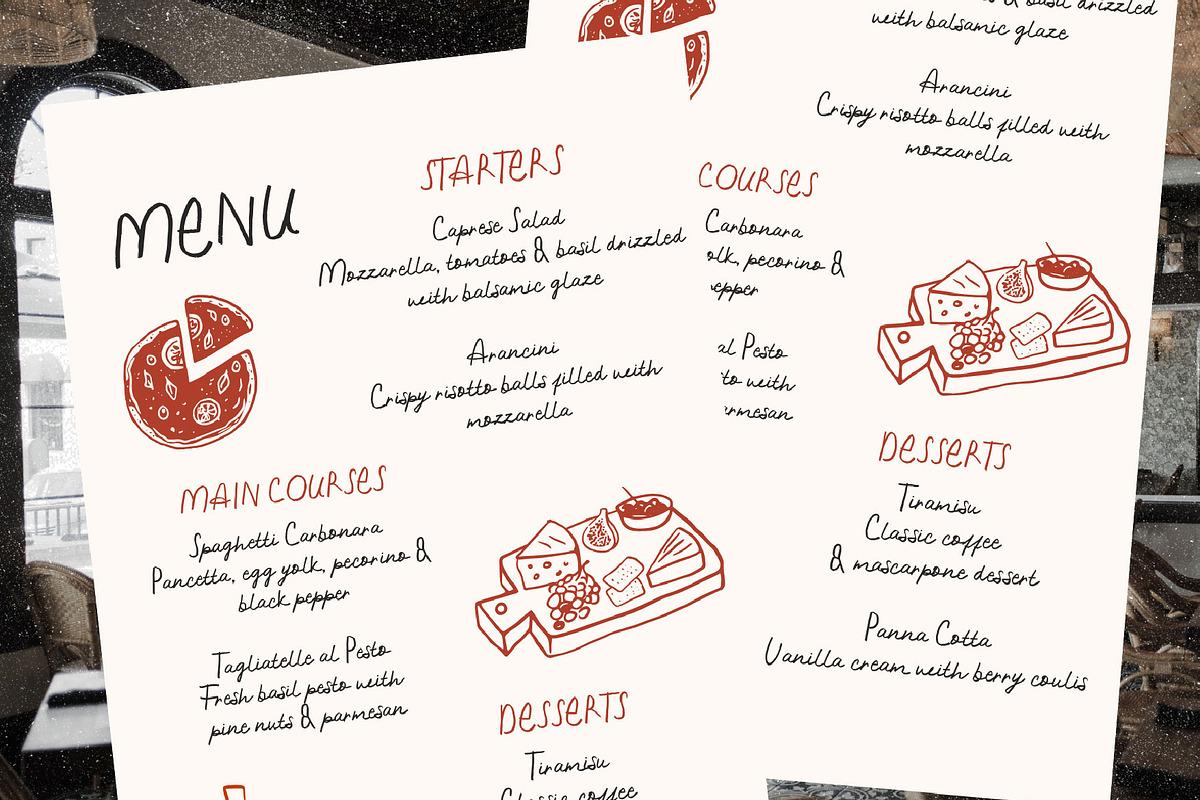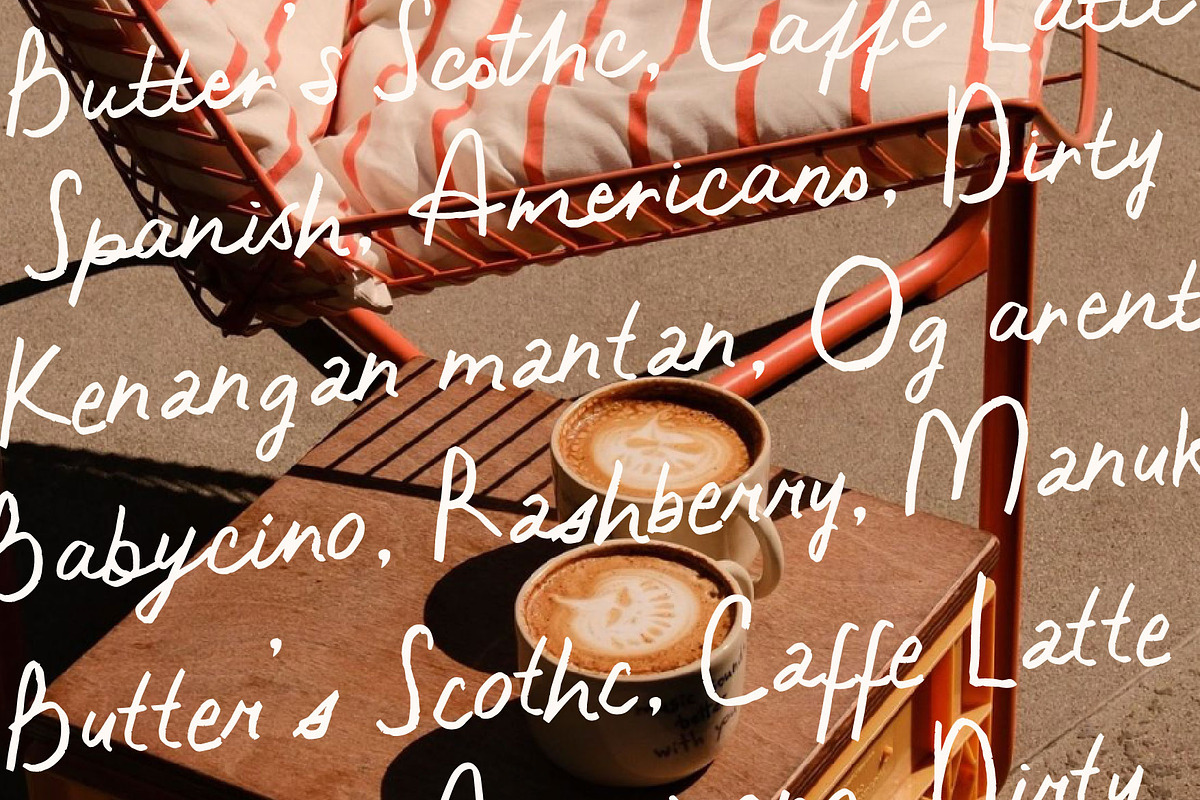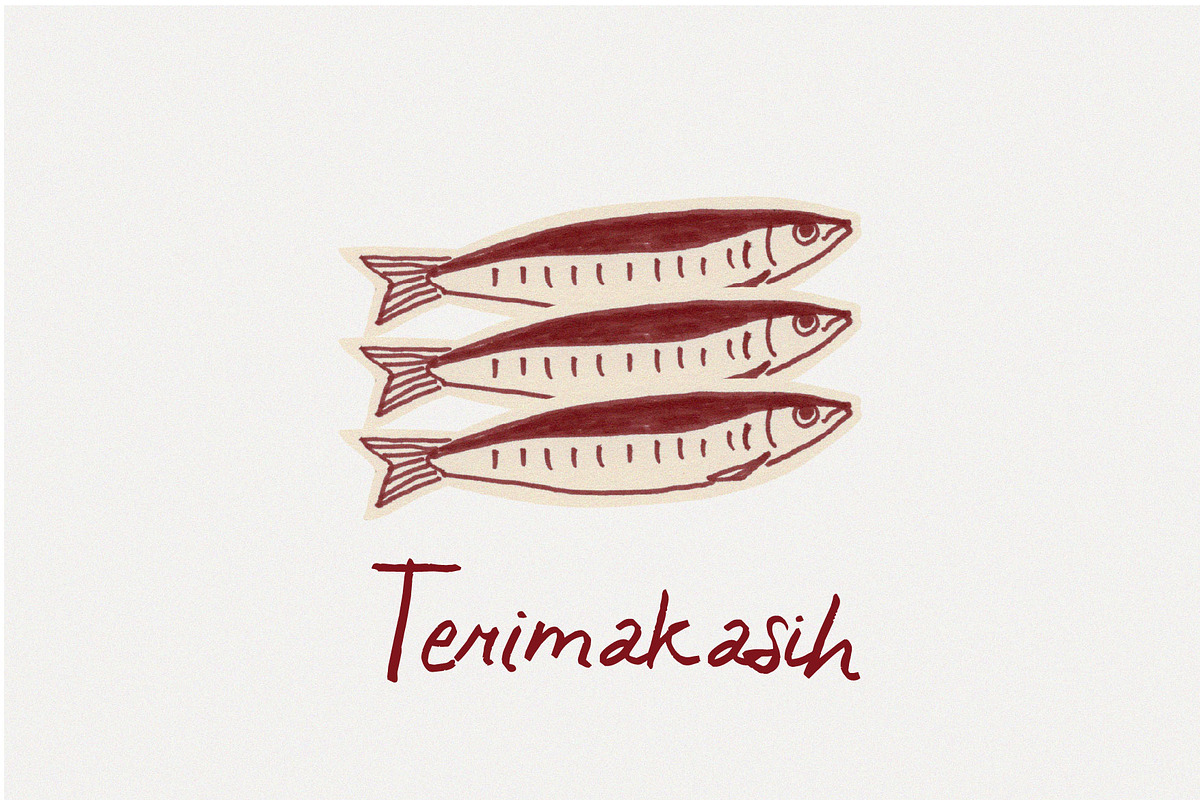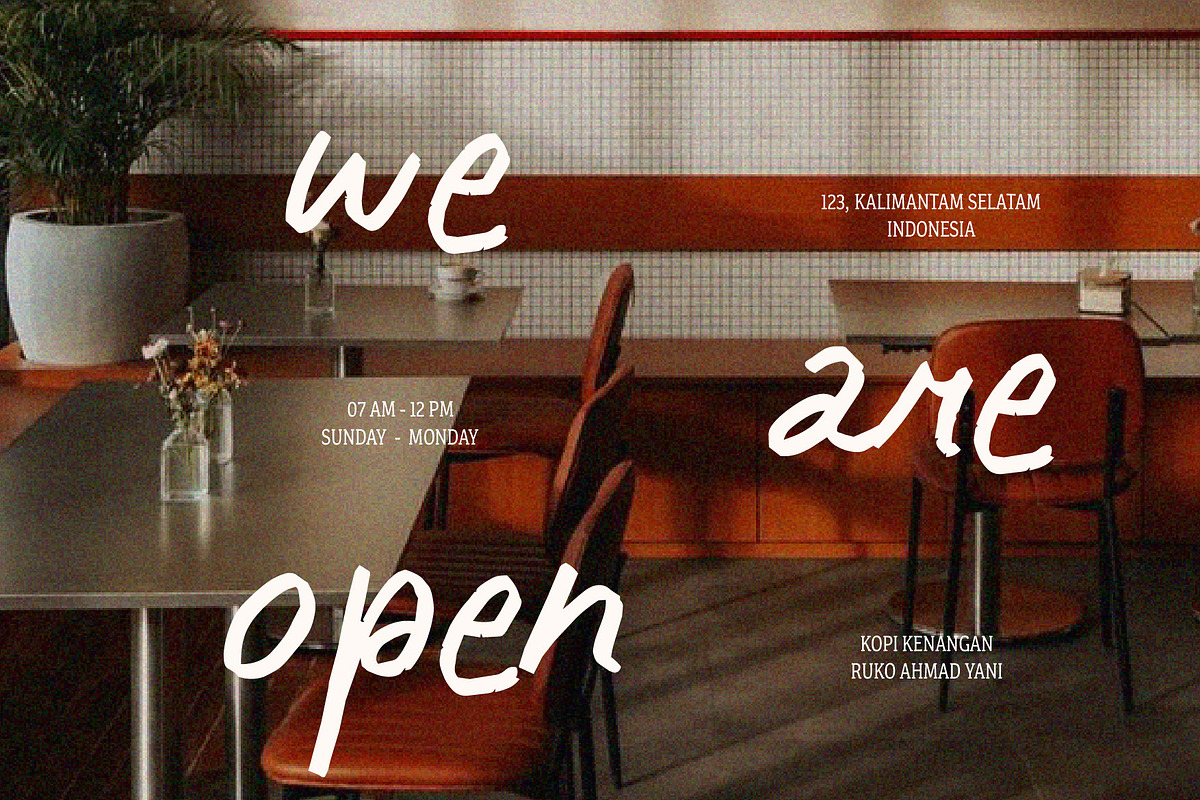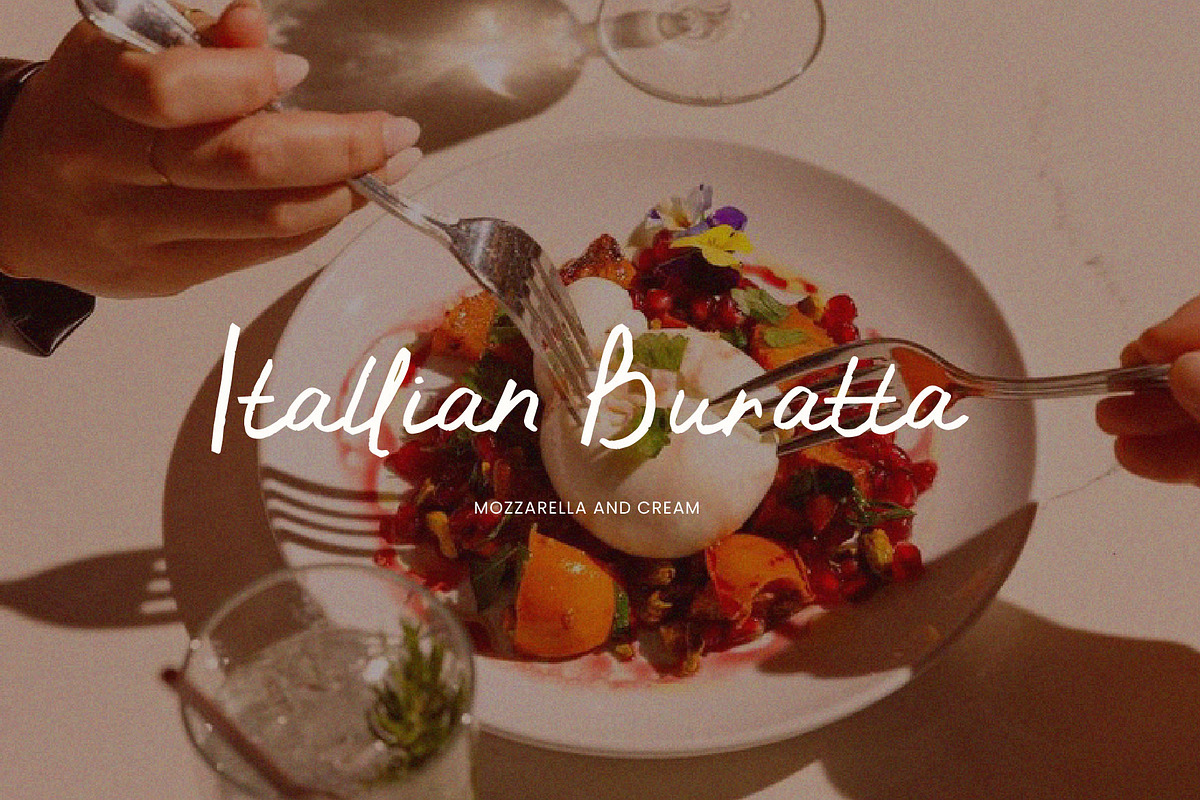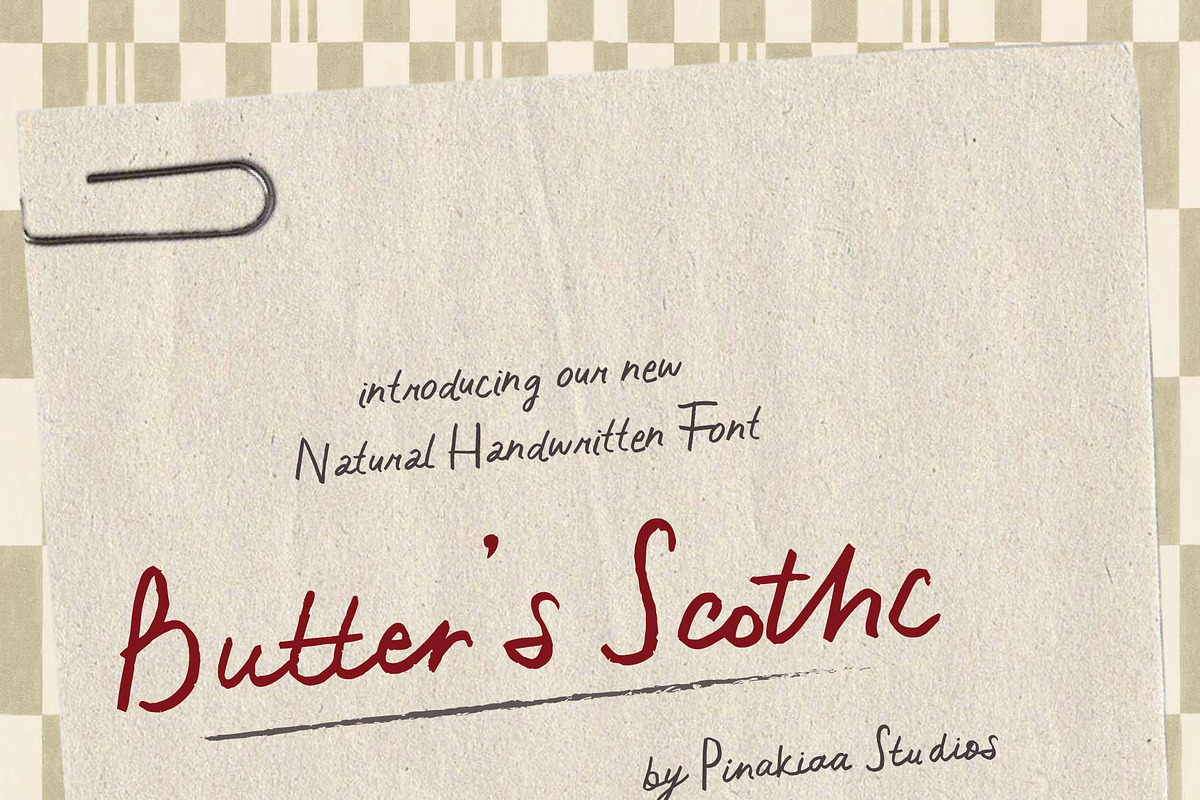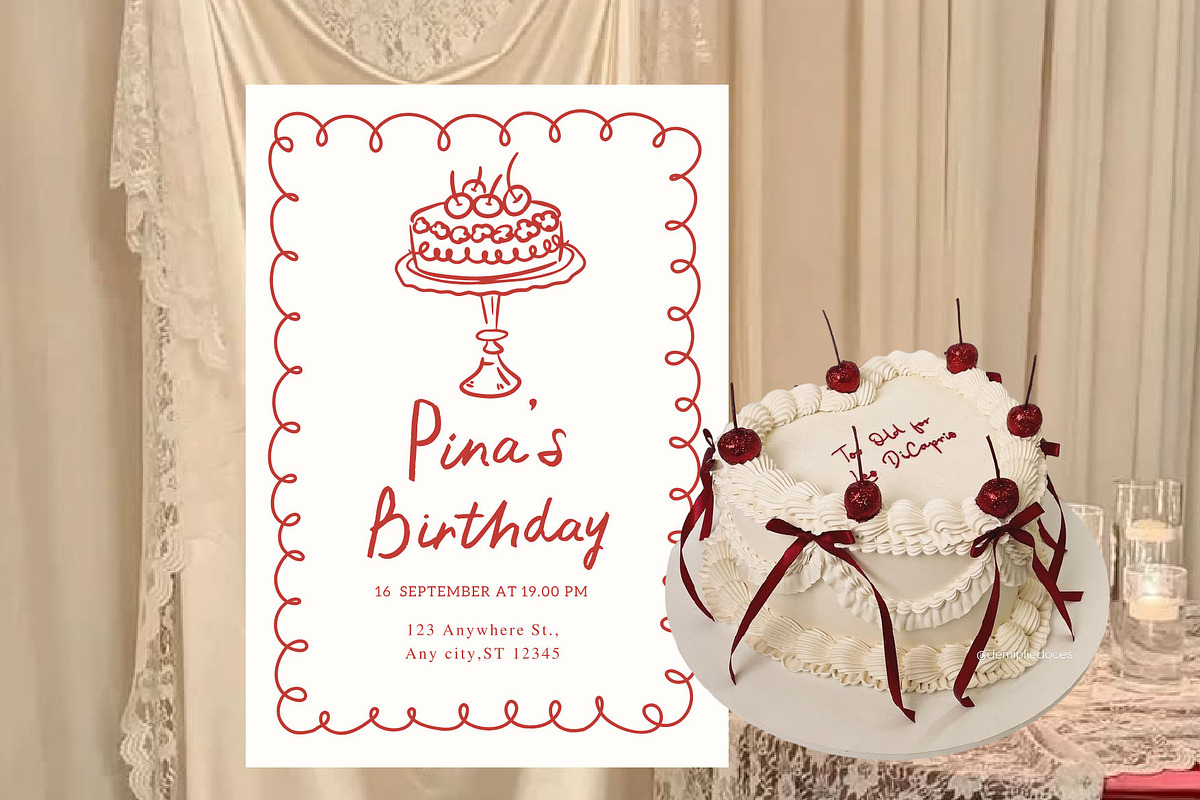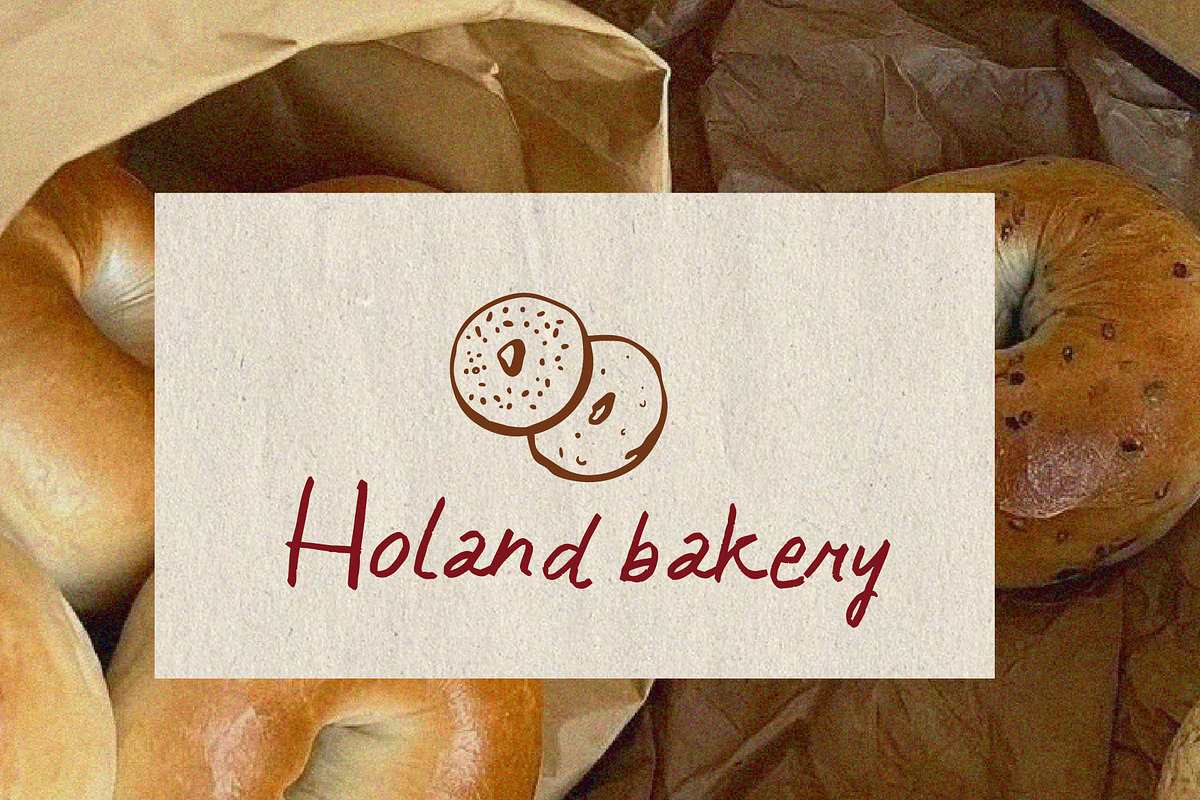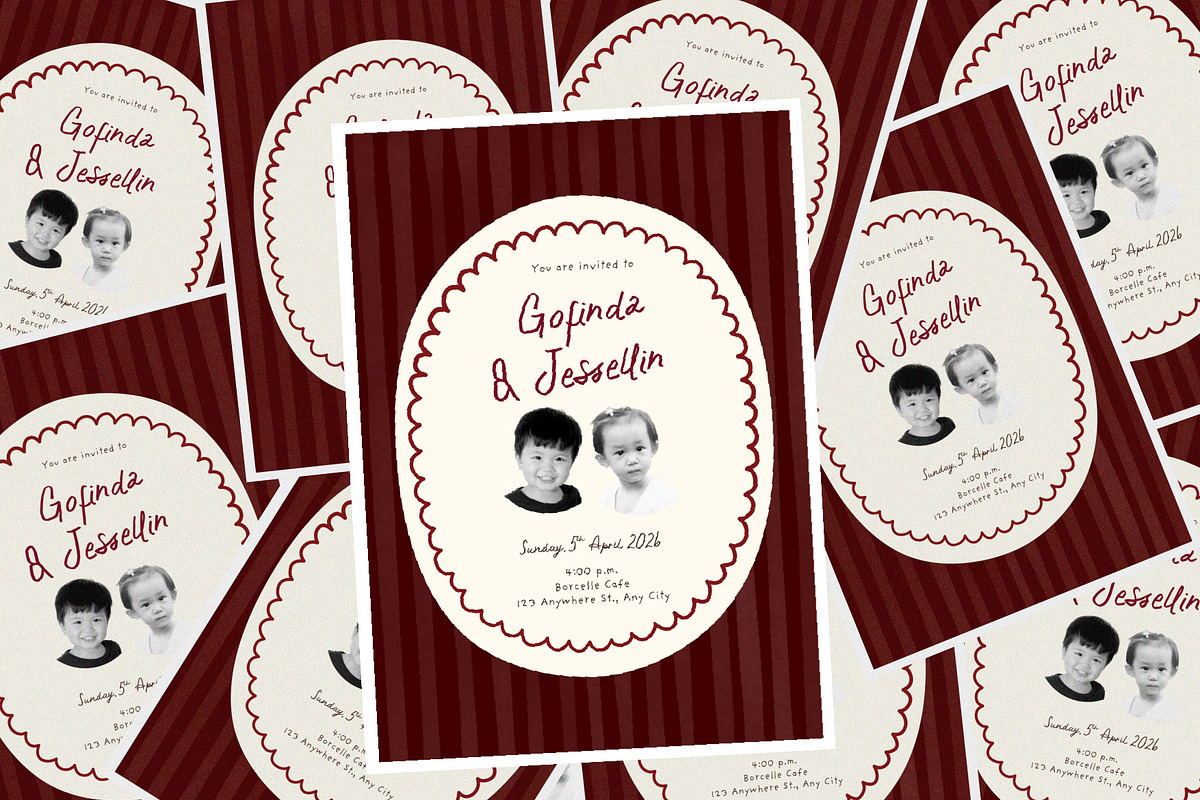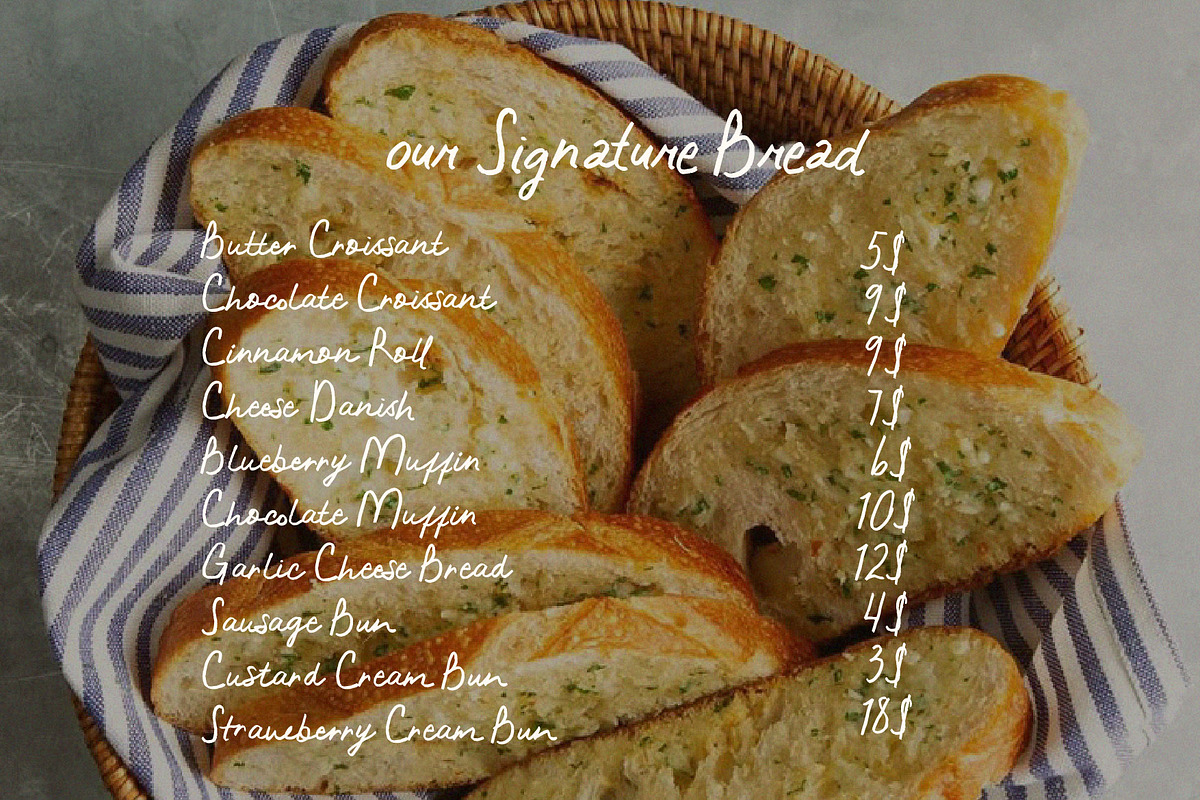
Butter's Scothc Natural Handwritten
Meet Butter’s Scotch — a naturally charming handwritten font made to bring warmth and personality to your designs.
With its organic strokes, playful rhythm, and authentic handwritten feel, Butter’s Scotch is perfect for creating designs that feel personal, cozy, and effortlessly stylish.
From bakery packaging and café menus to wedding stationery, branding, invitations, labels, social media, and everyday creative projects, Butter’s Scotch adds just the right amount of handmade charm.